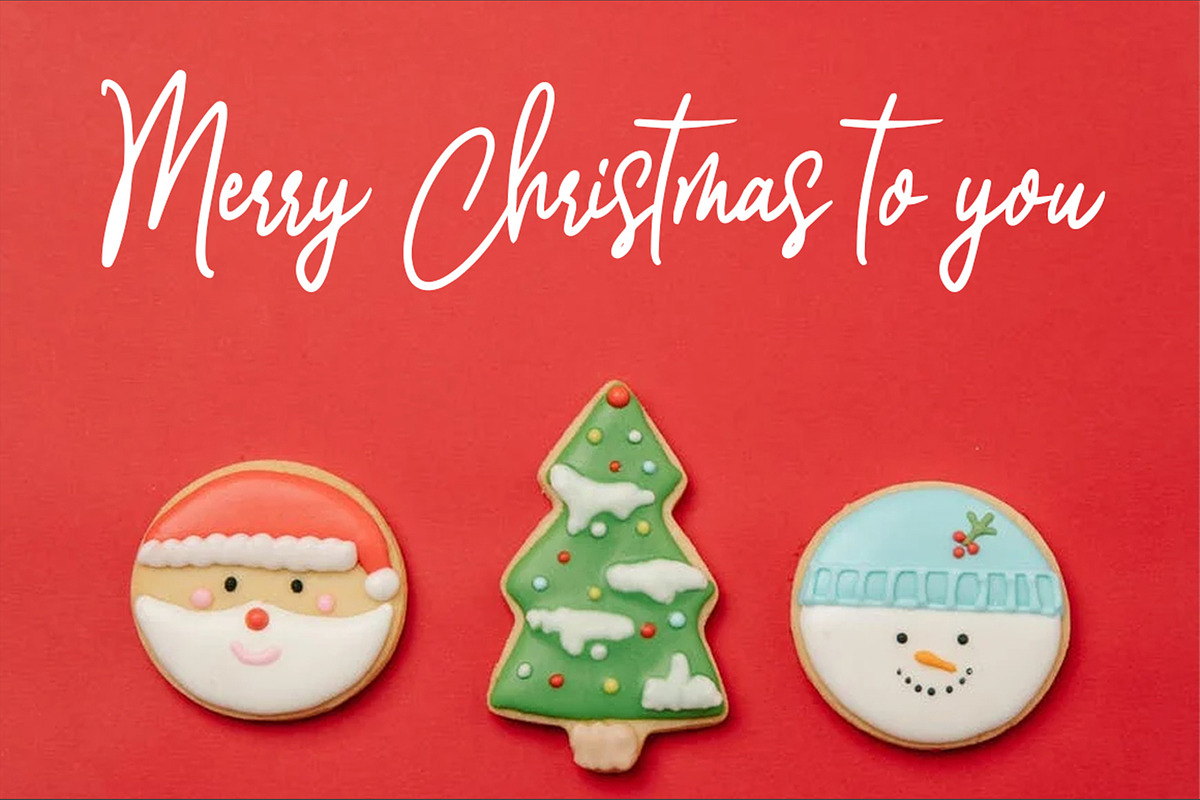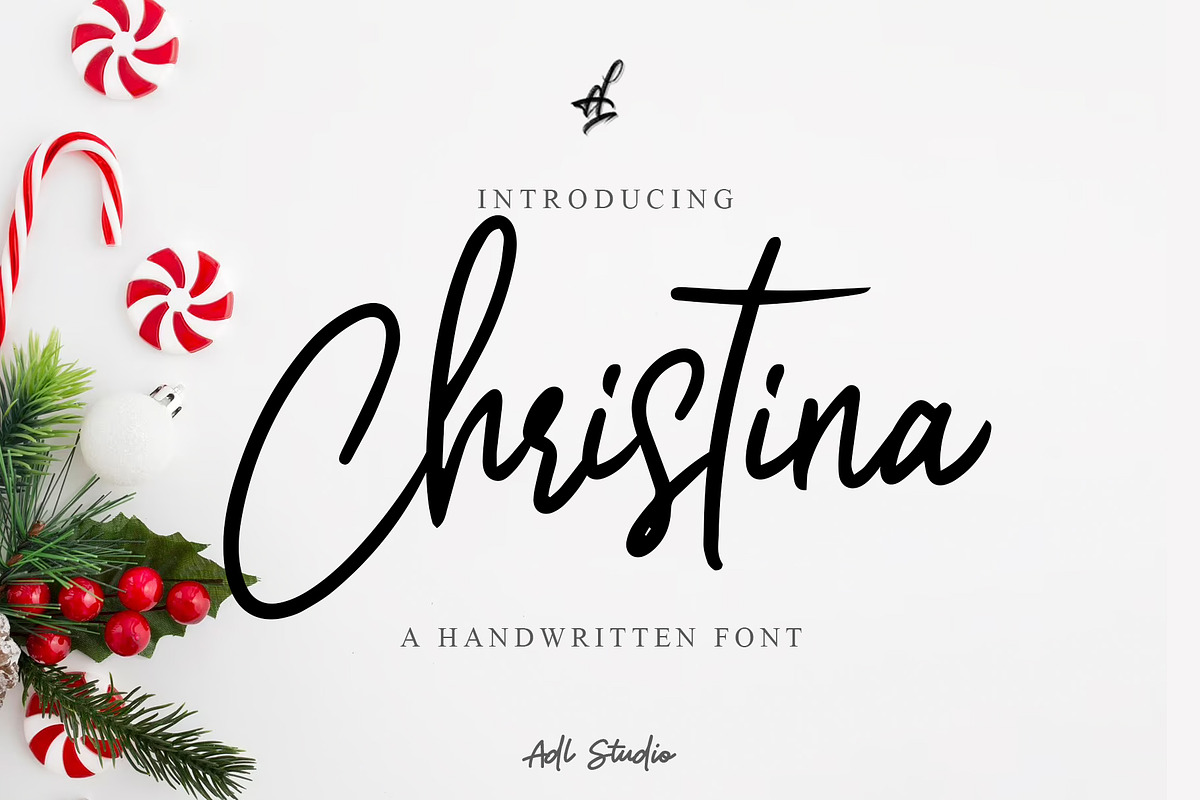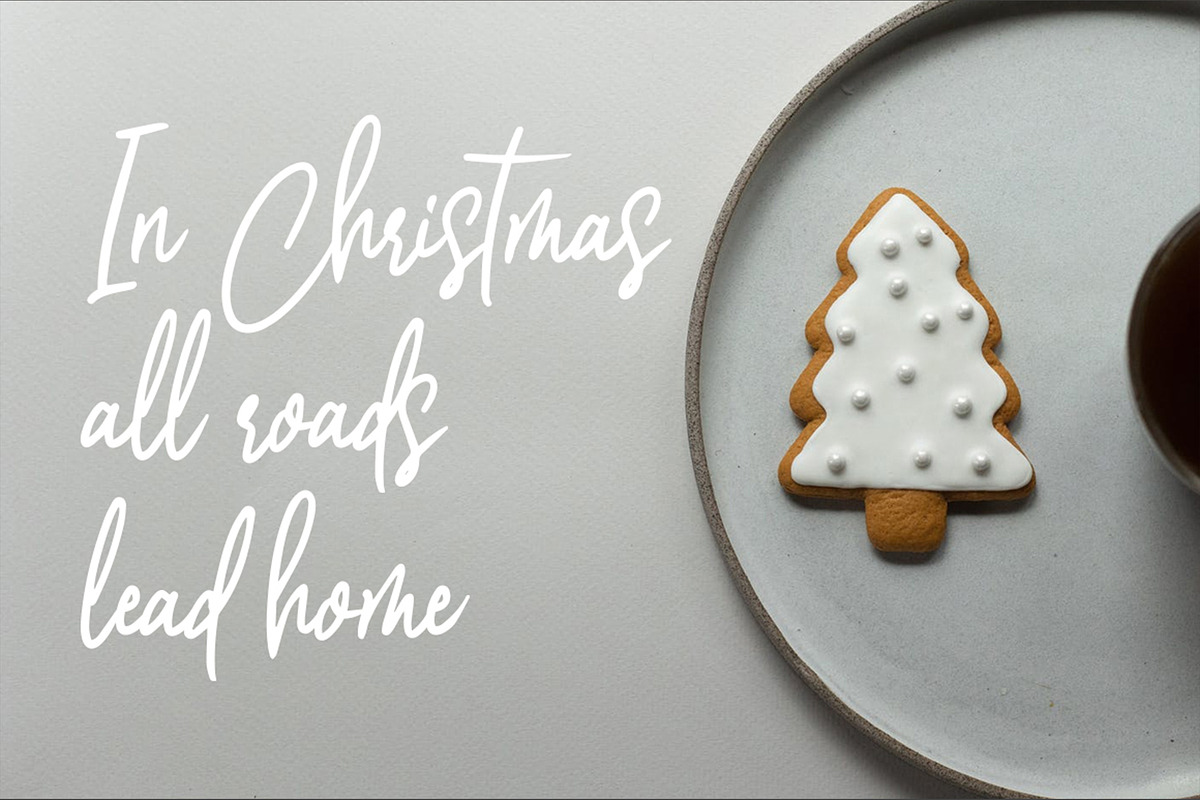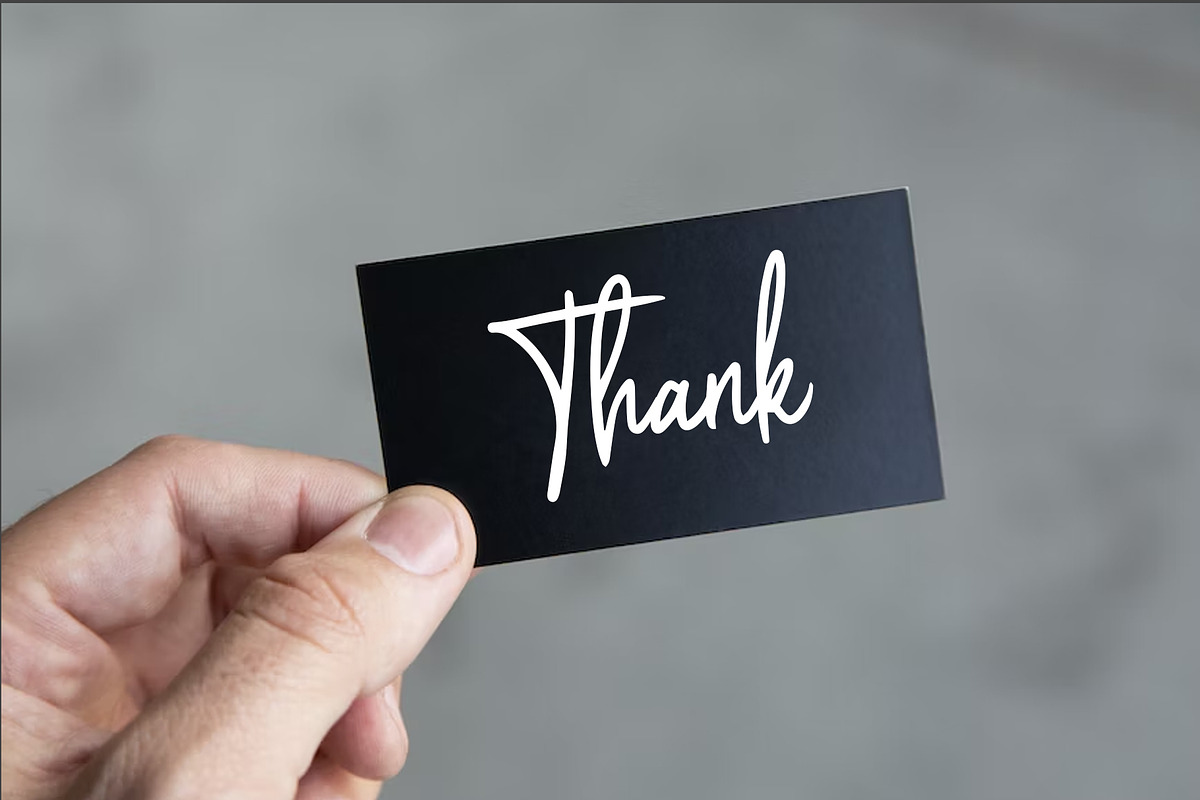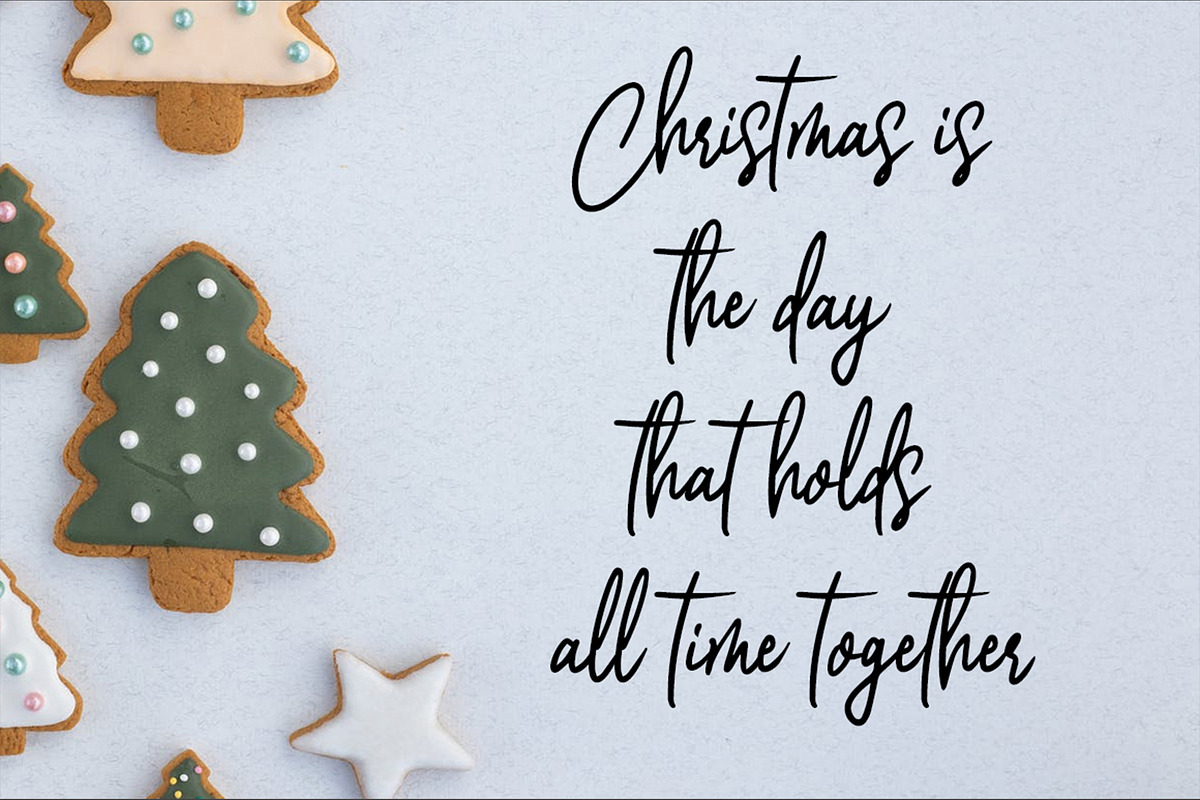
Christina
Introducing "Christina" - a beautifully crafted handwritten font by ADL Studio, available exclusively on Creative Market. With its elegant, natural flow and unique character design, Christina is perfect for adding a personal touch to your projects.
This versatile font is perfect for a variety of projects, from branding and logos to wedding invitations and social media graphics. The fluid strokes and subtle imperfections give Christina a natural and organic feel, making it a great choice for those who want to add a touch of personality to their designs.